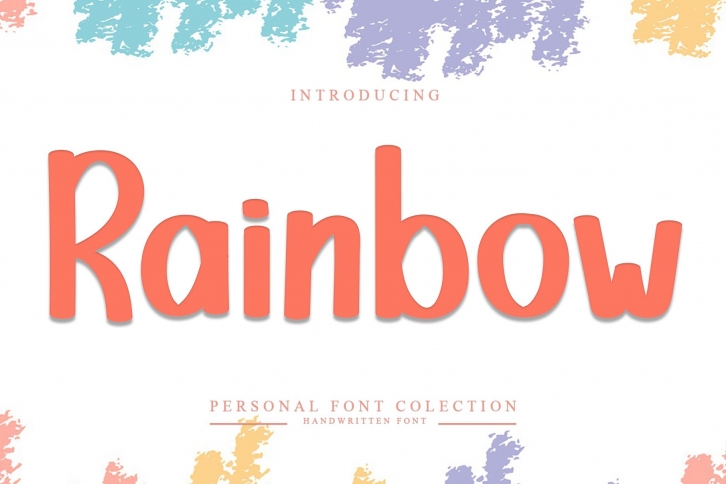
Rainbow Colection is a gorgeous font that was realeased on February 16, 2022. The font can be used in many style contexts and design environments. Perfect for invitations, magazines, websites, logos, and more! It was designed by Giart Studios and the file size is 16.84 MB. Thanks for checking out this font!